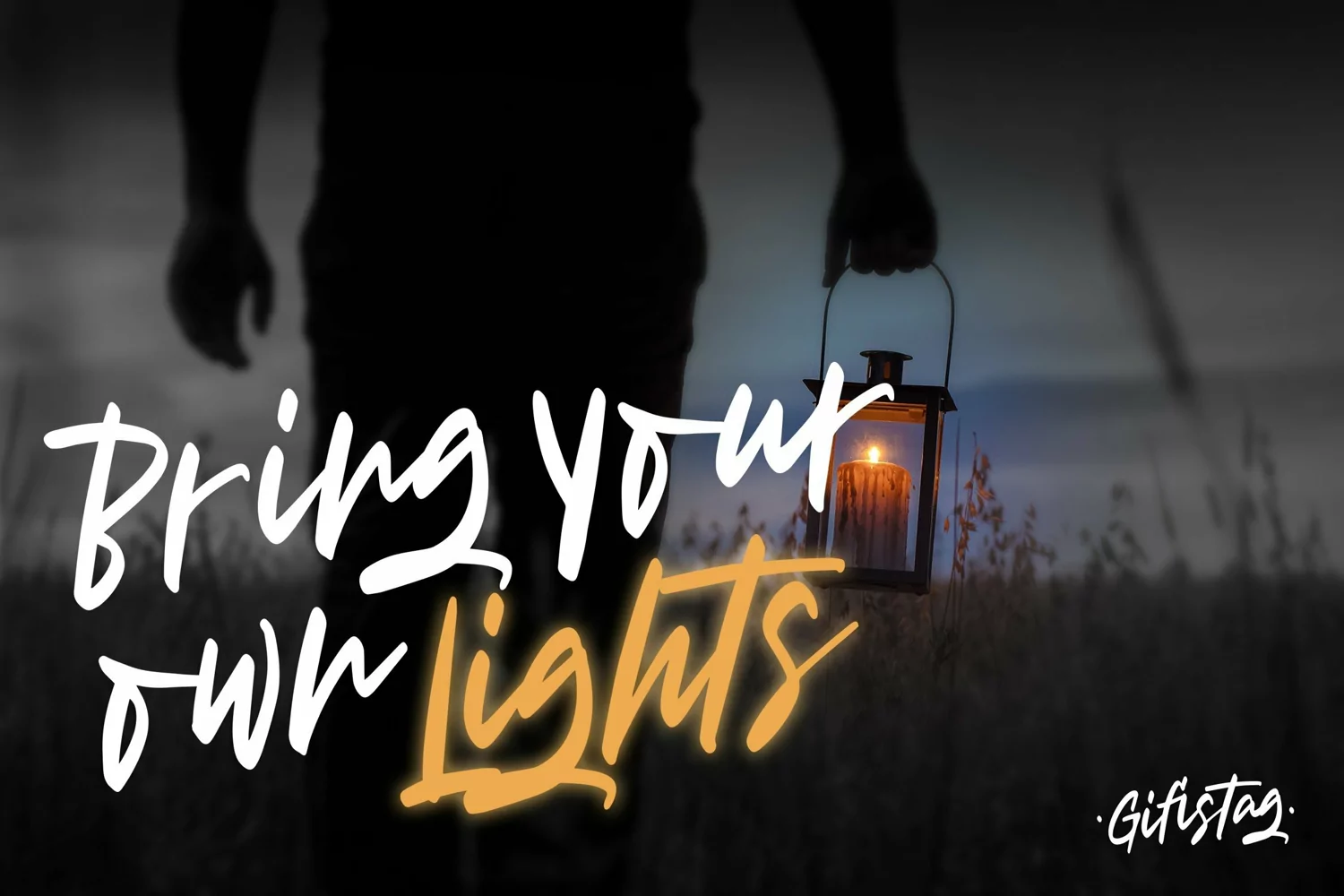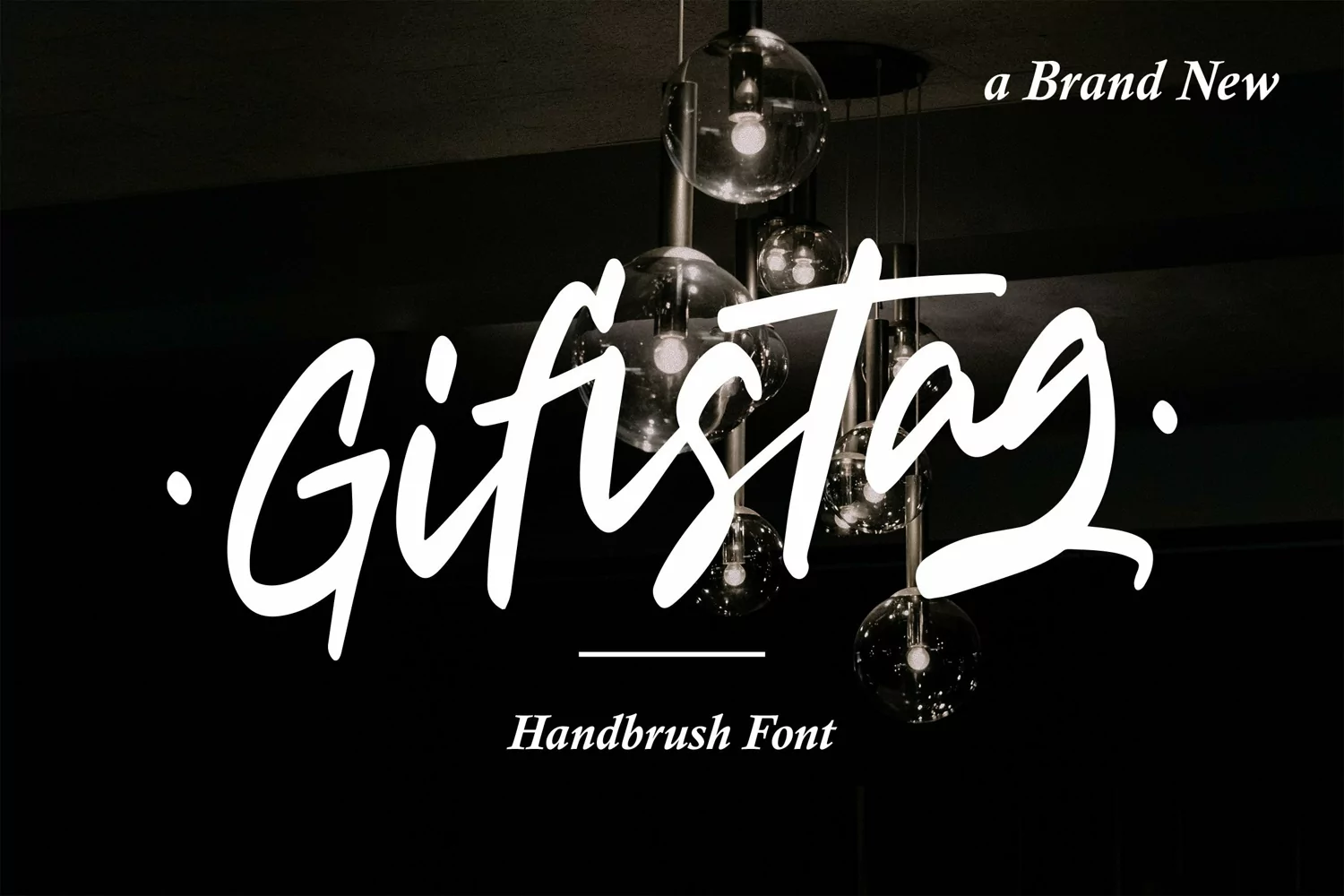
Gifistag - Signature Brush Font that contain lowercase, uppercase, symbol, and also support multi language. There’s a lot ligatures in this font. This Font also comes with ligatures, alternates and many more. this font suitable for fashion, branding, catalog and other design what you want.